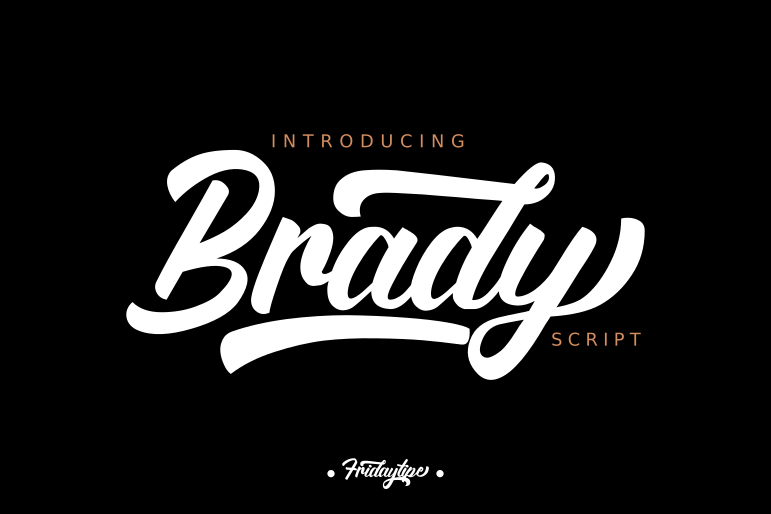
Brady
Brady is a script font with a clear style and dramatic movement this font is great for your next creative project such as logos, printed quotes, invitations, cards, product packaging, headers, Logotype, Letterhead, Poster, Apparel Design, Label, and etc. This typeface is comes in uppercase, lowercase, punctuations, symbols & numerals, stylistic alternates, swashes, also support multilingual and already PUA encoded.